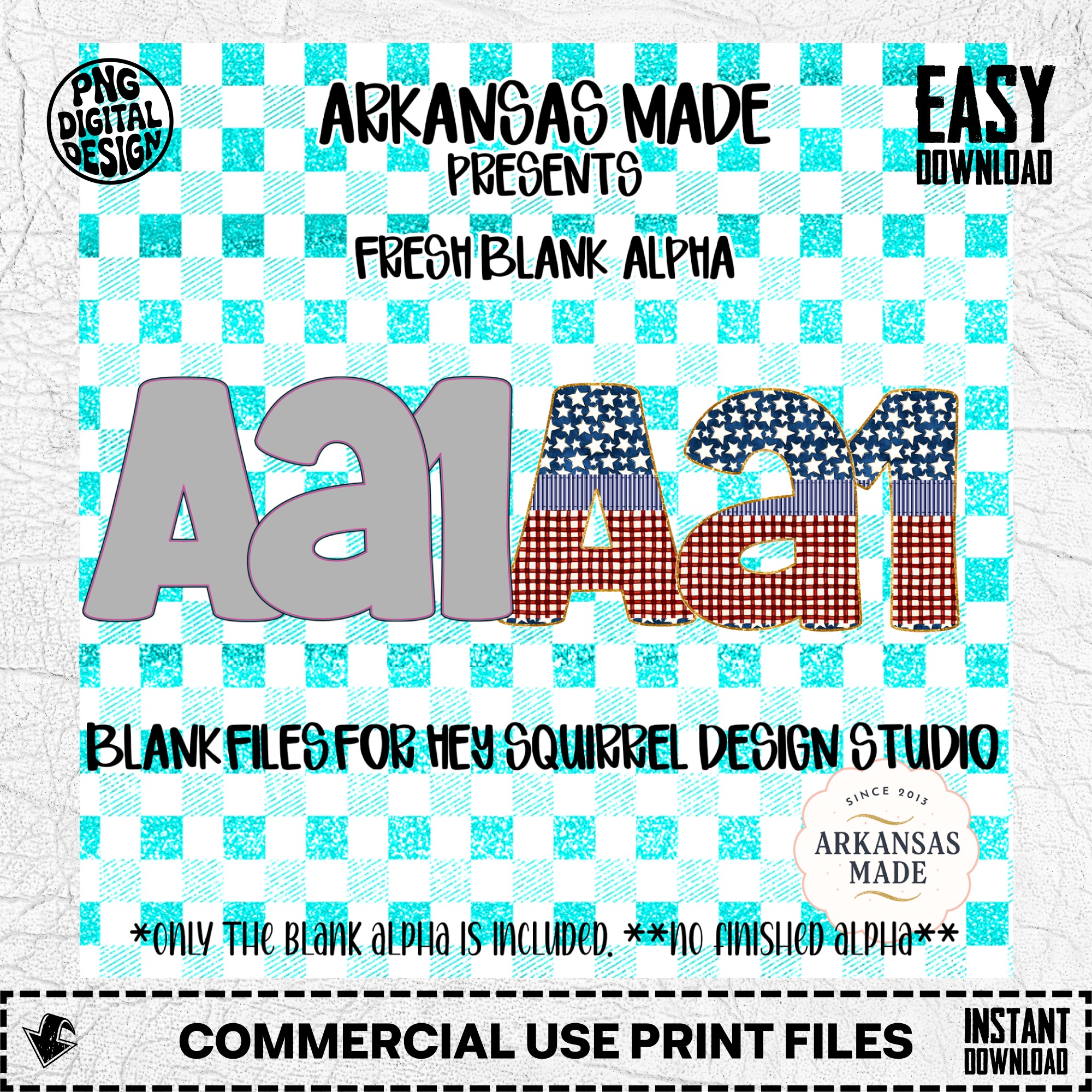
Unlock endless creativity with our Fresh Blank Alpha Digital PNGs for Hey Squirrel Design Studio, perfect for all your custom crafting projects. These versatile digital blank letters provide the ideal foundation for personalized designs, allowing crafters to add their unique patterns and textures. Ideal for digital artists, DIY enthusiasts, and small business owners, this instant download alpha set is a must-have resource for creating custom sublimation designs, t-shirts, mugs, and more. A fantastic digital asset for anyone looking to personalize their digital creations with ease.